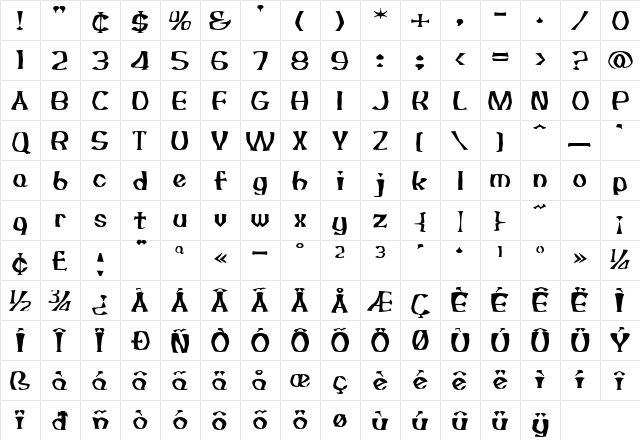
UUeirdieWarp Regular Free Font
UUeirdieWarp Regular
Design Context for UUeirdieWarp
UUeirdieWarp is a composed and adaptable typeface that performs quietly and consistently across a wide range of design contexts.